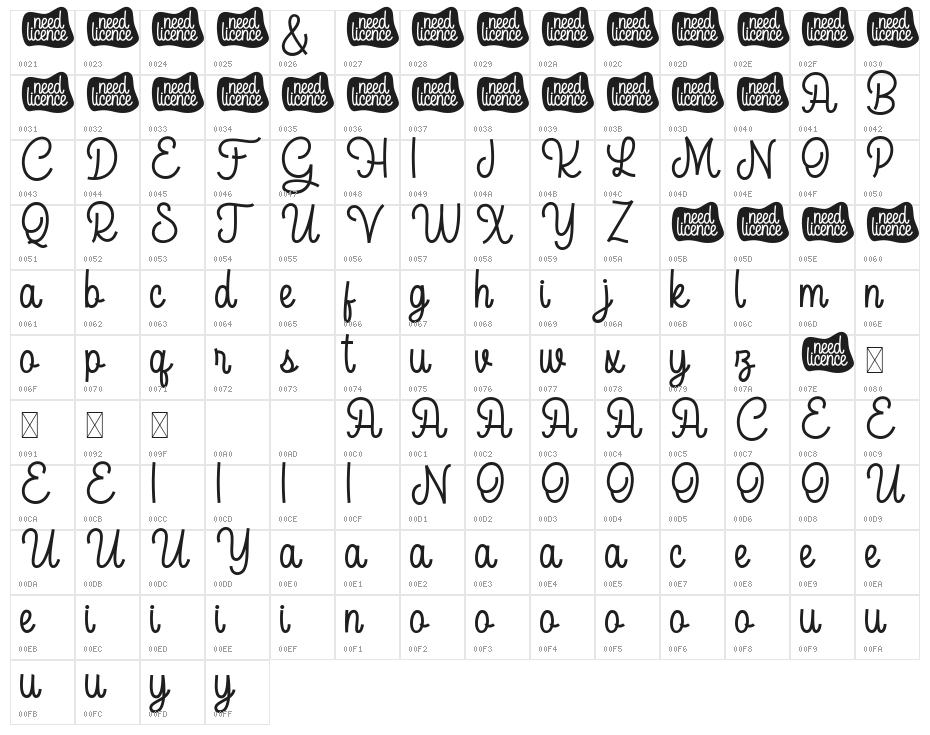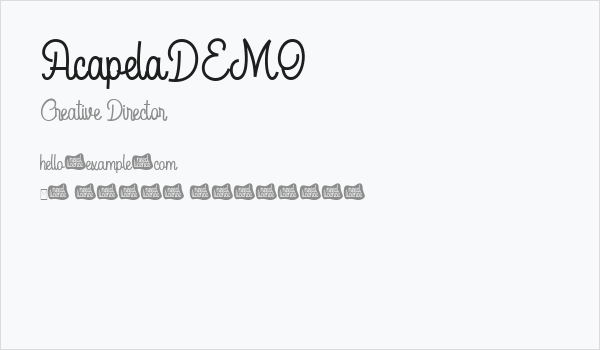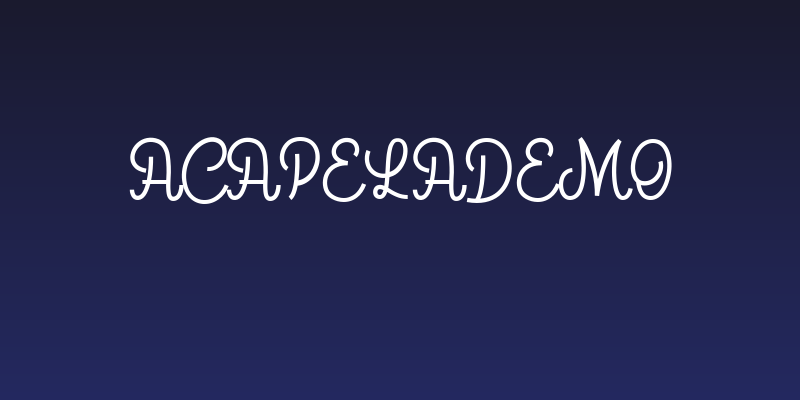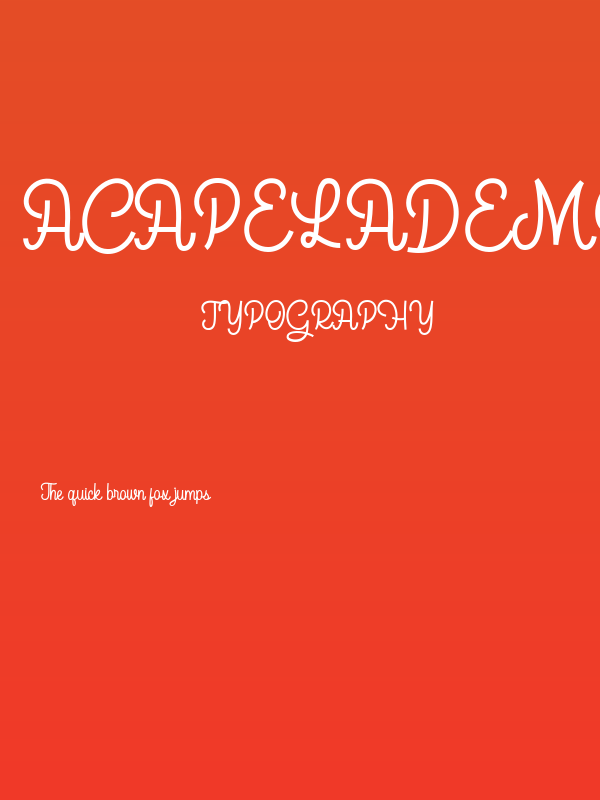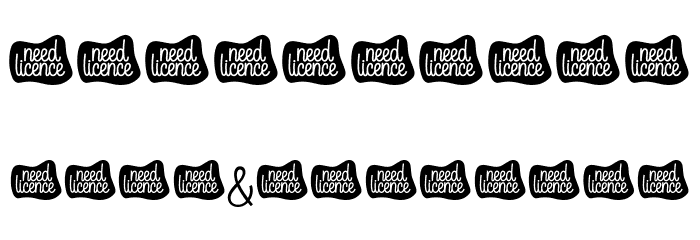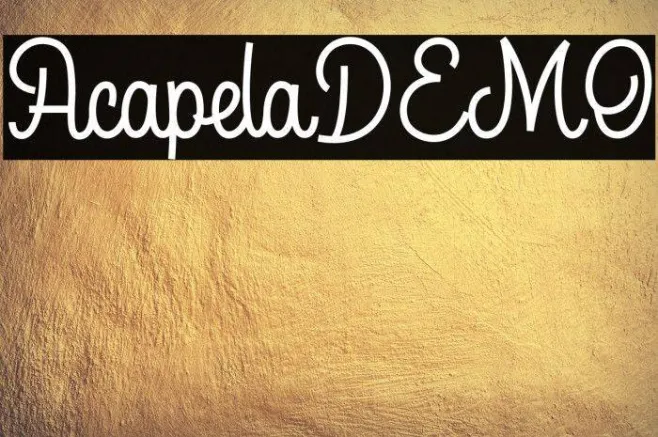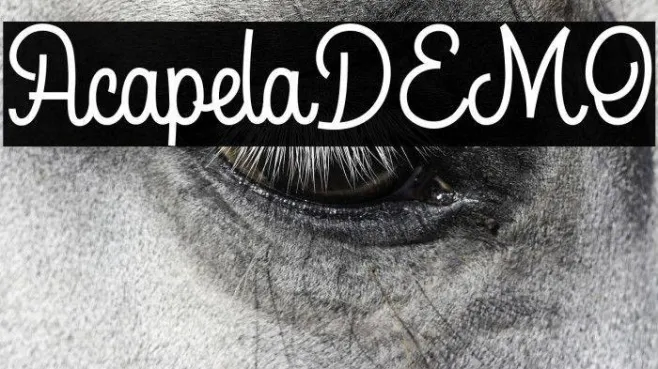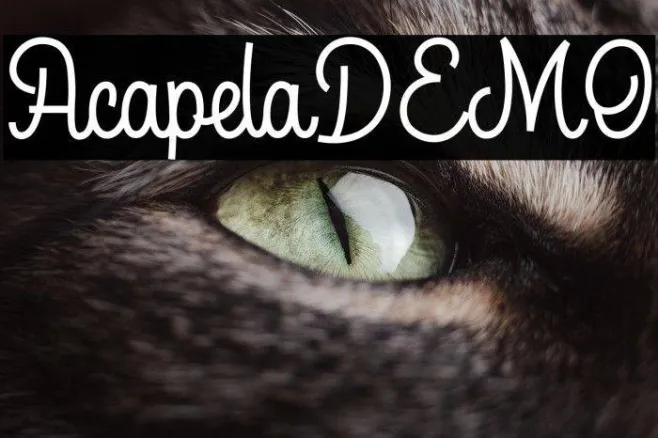
AcapelaDEMO Font
AcapelaDEMO Description
This font features a playful and whimsical script style with a handwritten feel. The uppercase letters are elegantly looped and connected, giving a sense of fluidity and movement. The lowercase letters maintain a consistent style, with some characters featuring unique flourishes that add to the font's charm. The numbers and special characters are designed to match the overall aesthetic, ensuring a cohesive look across all text. This font is perfect for projects that require a personal touch or a creative flair.
| Use Case | Logos, Invitations, Creative projects |
| Proposed Projects | Ideal for greeting cards, invitations, branding, and creative projects that require a personal touch. |